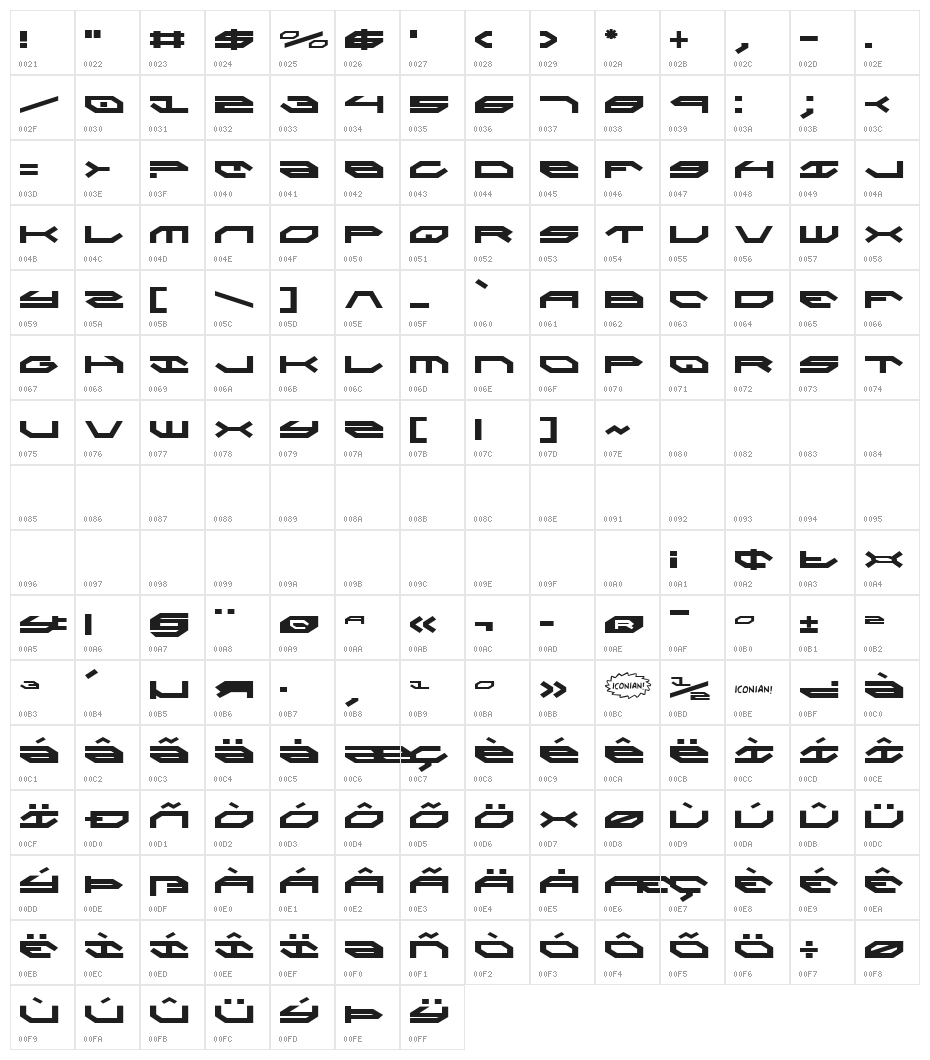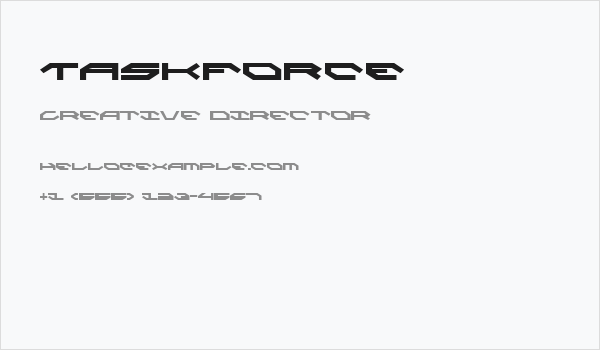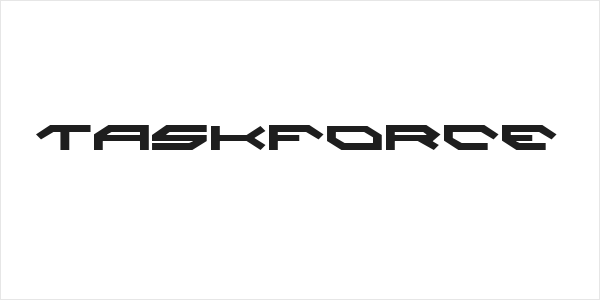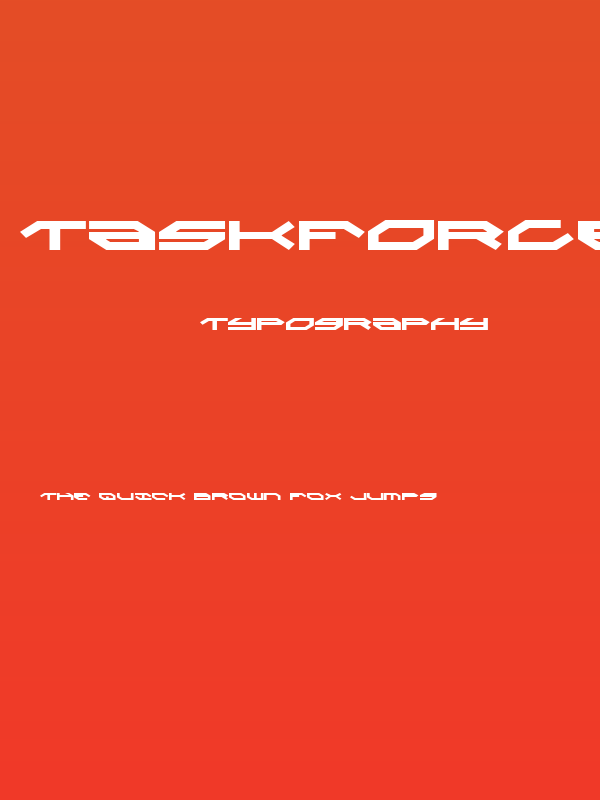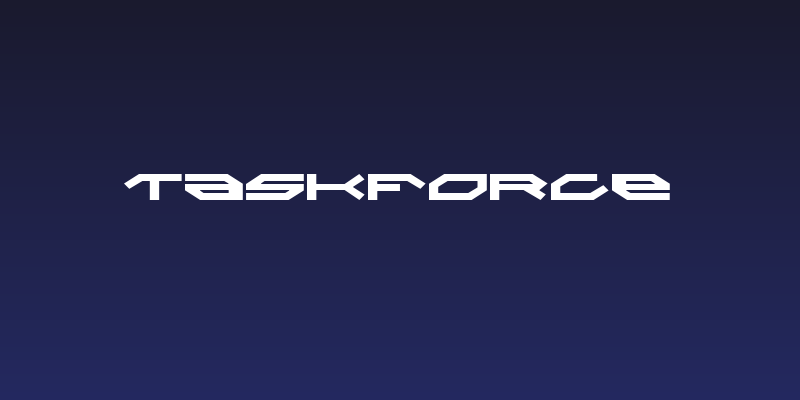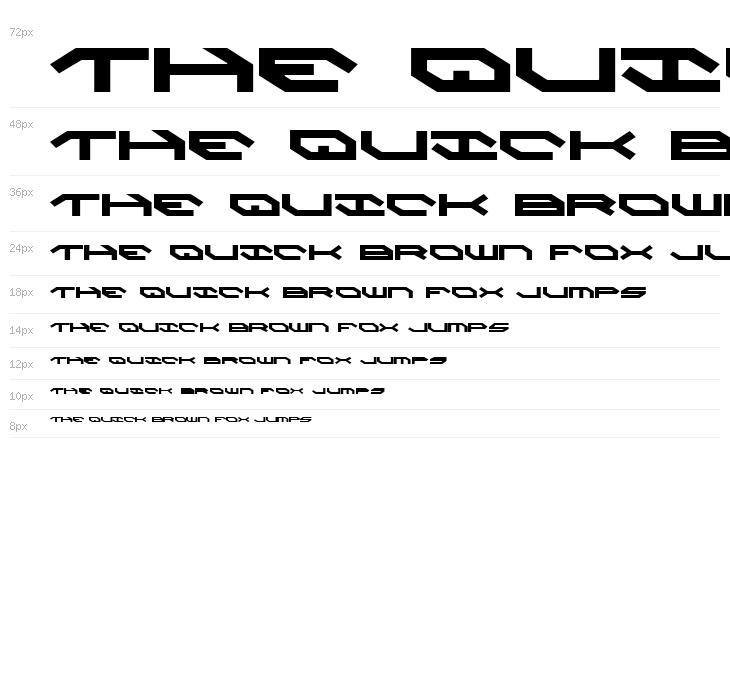
Taskforce Font
This font features a futuristic and angular design, characterized by sharp edges and geometric shapes. The uppercase and lowercase letters maintain a consistent style, with a strong emphasis on horizontal and vertical lines. The numbers and special characters follow the same design principles, ensuring uniformity across all glyphs. The font's unique style makes it stand out, with a bold presence that captures attention. Its modern and edgy appearance is suitable for projects that require a distinctive and contemporary look.
| Proposed Projects | Ideal for sci-fi themed designs, technology branding, video game titles, and modern posters. |